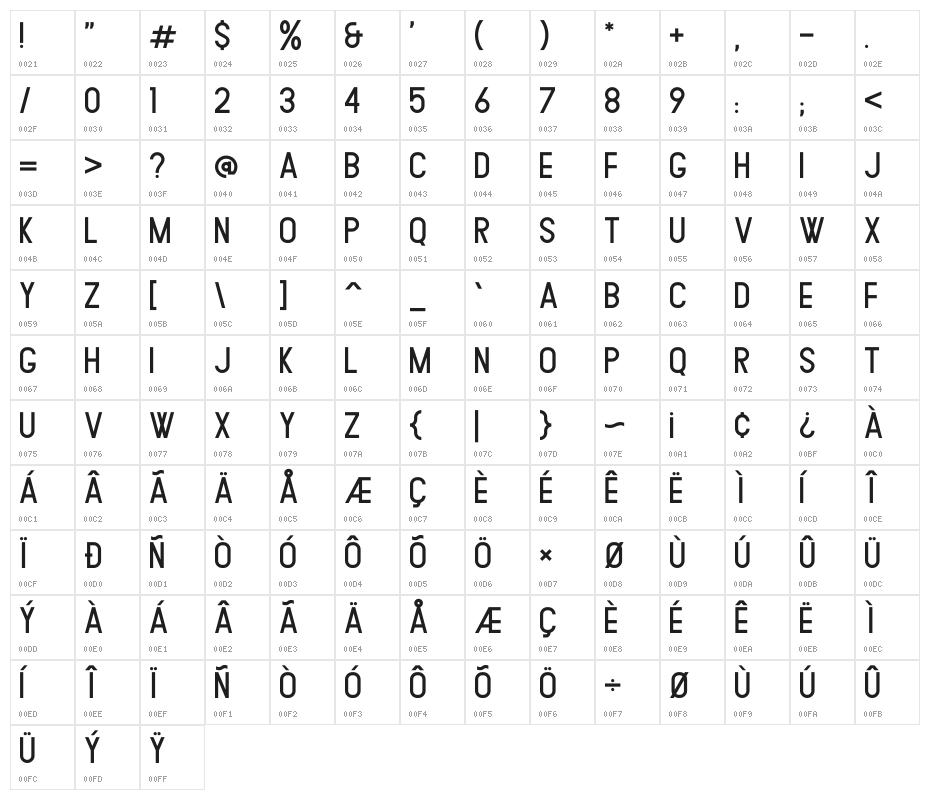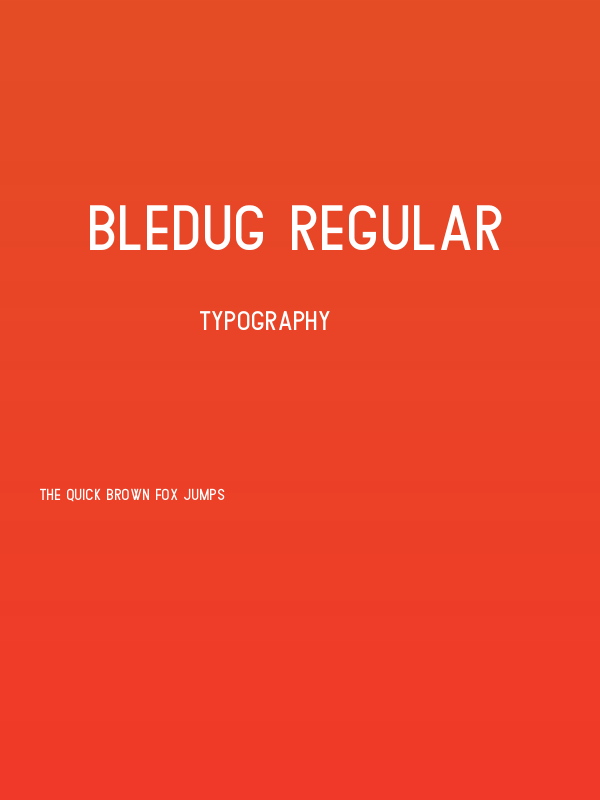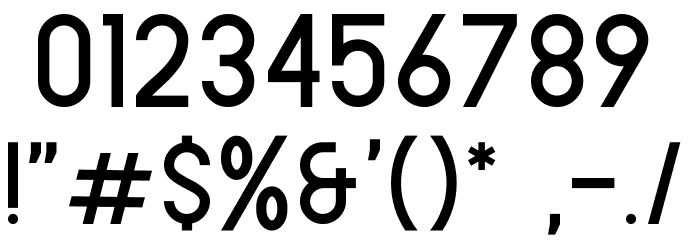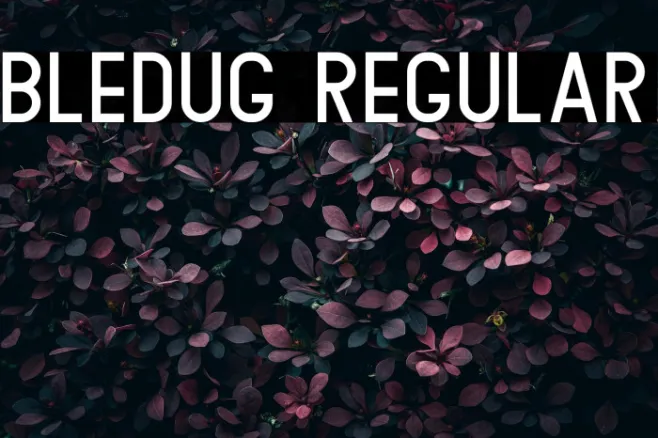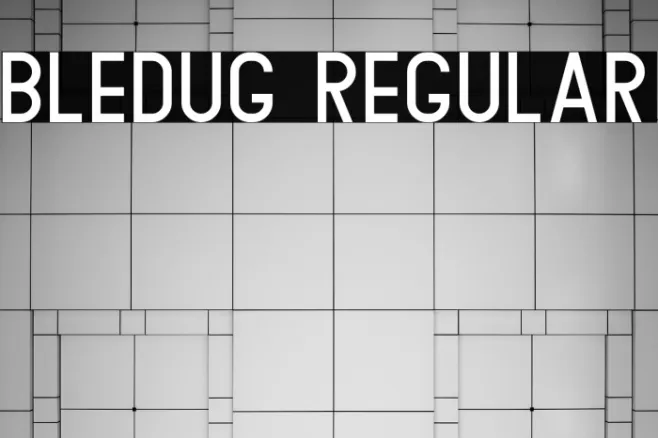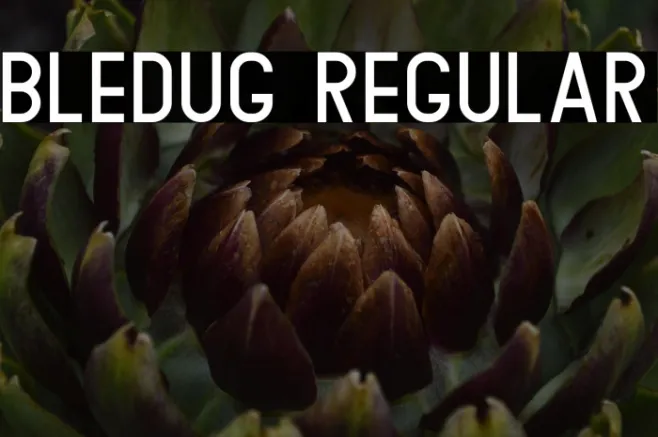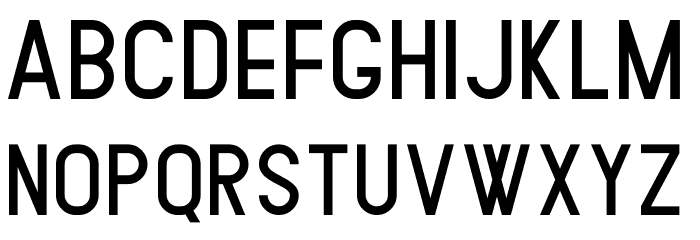
Bledug Regular Font
Bledug Regular Description
This typeface features a bold and modern sans-serif design, characterized by clean lines and a geometric structure. The uppercase and lowercase letters are well-proportioned, with a uniform stroke width that provides a strong visual impact. The numerals are clear and distinct, making them easily readable. Special characters are included, maintaining the font's cohesive style. The overall appearance is sleek and contemporary, suitable for a variety of design applications.
| Proposed Projects | Ideal for branding, advertising, headlines, and digital interfaces where a modern and bold statement is needed. |